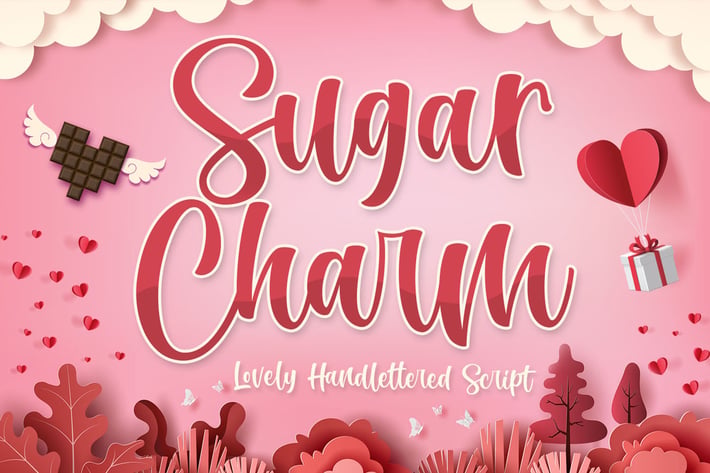
Sugar Charm - Sweet Script Font
Introducing Sugar Charm Font. A lovely hand-lettered script font. It has a unique and different style and will give your design a fun touch.
Sugar Charm would be perfect for logos & branding, photography, watermark, social media posts, advertisements, invitation, product designs, label, stationery, wedding designs, product packaging, special events or anything that need handwriting taste.